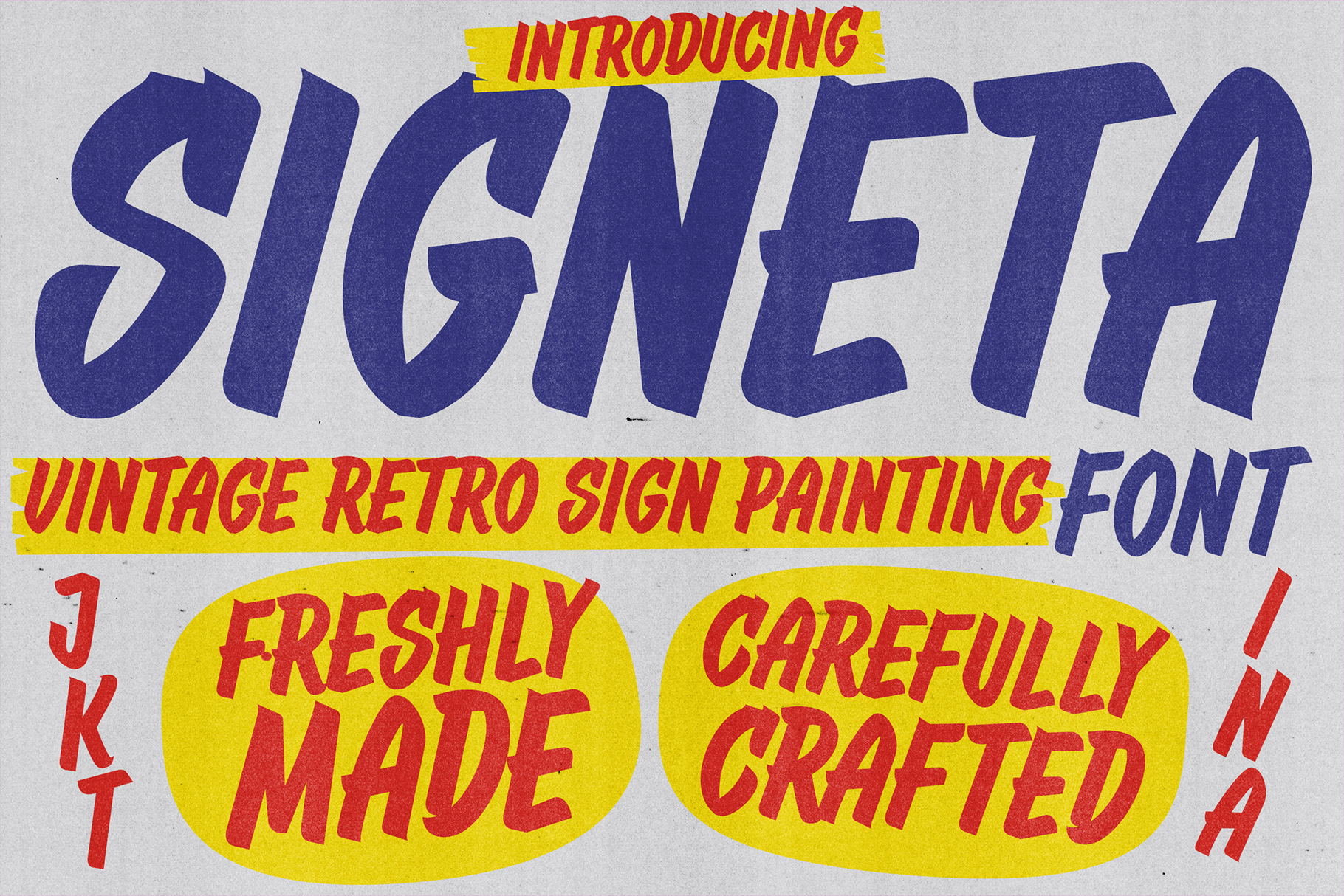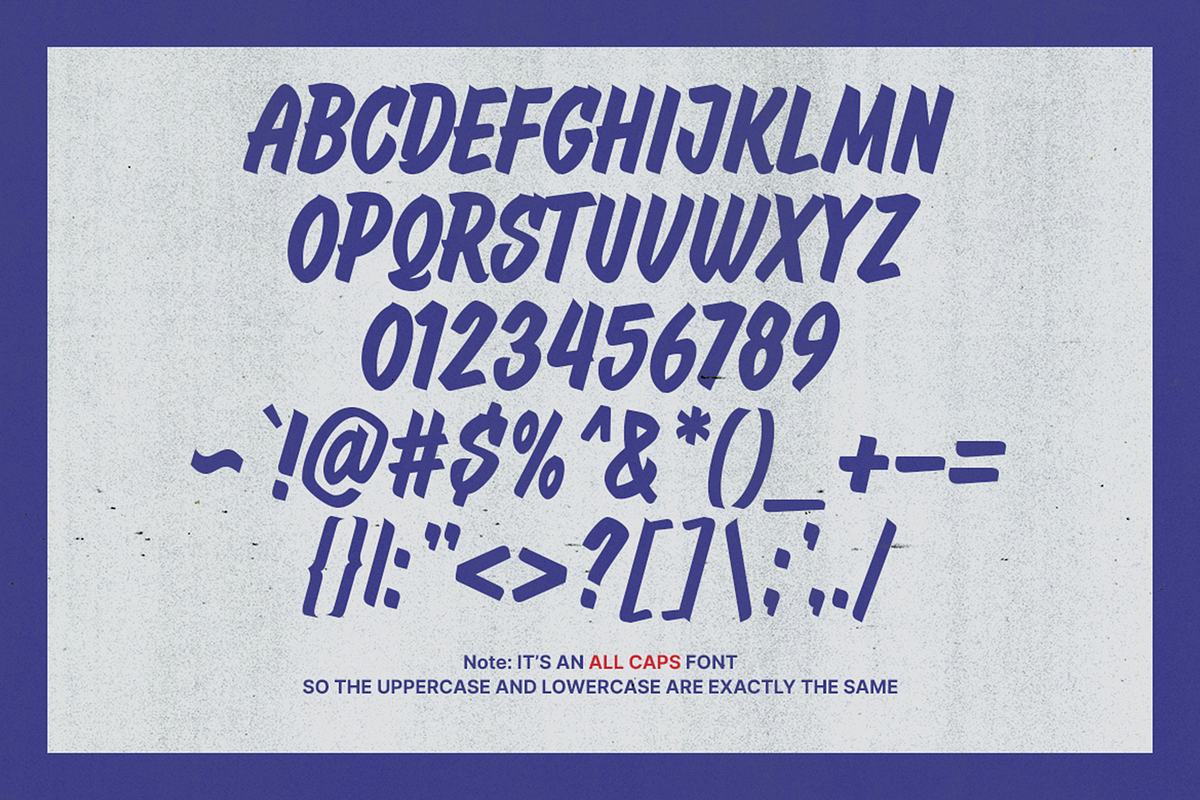
Signeta - Vintage Sign Painting Font
Signeta is a font inspired by vintage sign paintings from the 60s and 70s. A visual that dominated the industry in many ranges, we talked about storefronts, posters, advertising, packaging, and more.
Perfectly fit for a logo, branding, signage, decor, books, cover, badges and emblems, clothing, apparel, merchandise, movie title, serials, and many more.